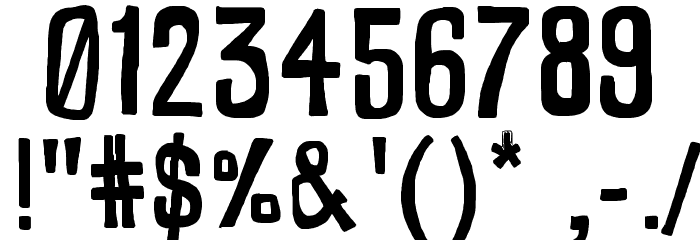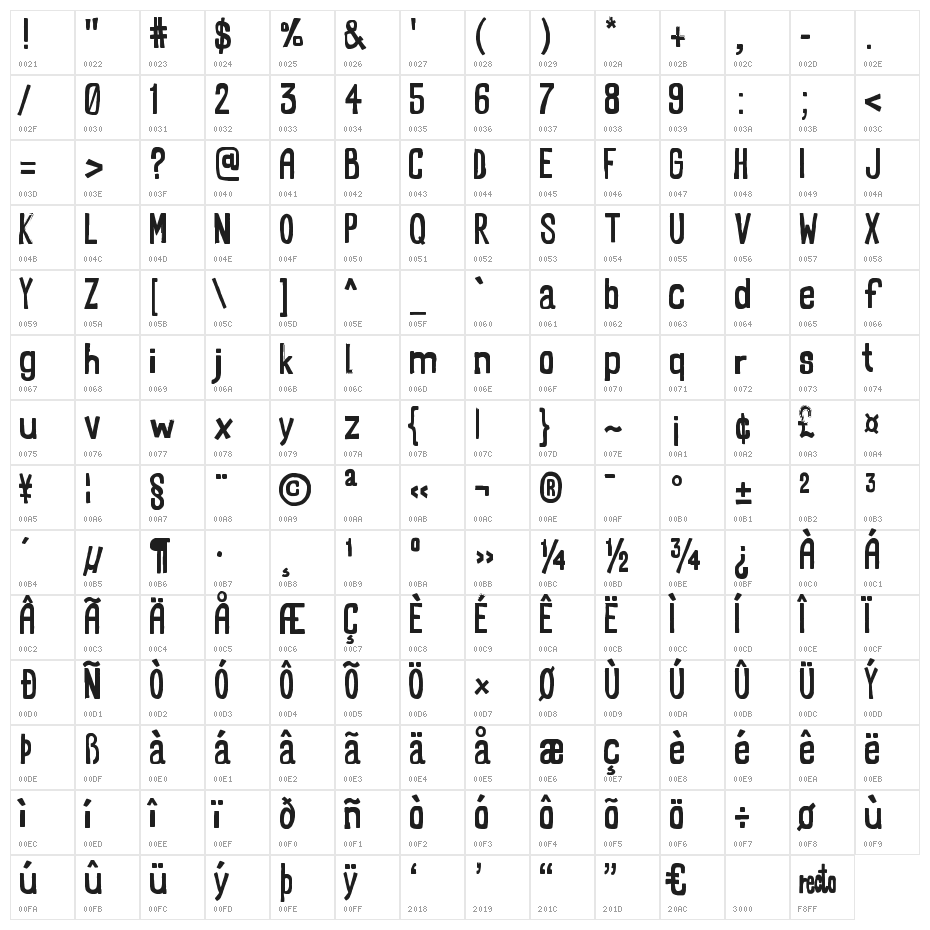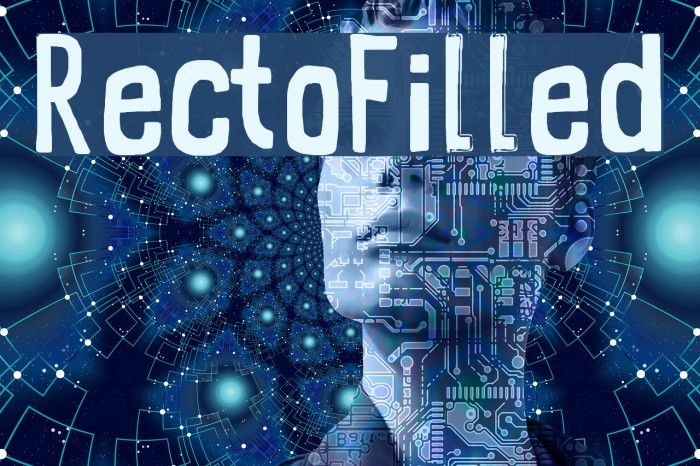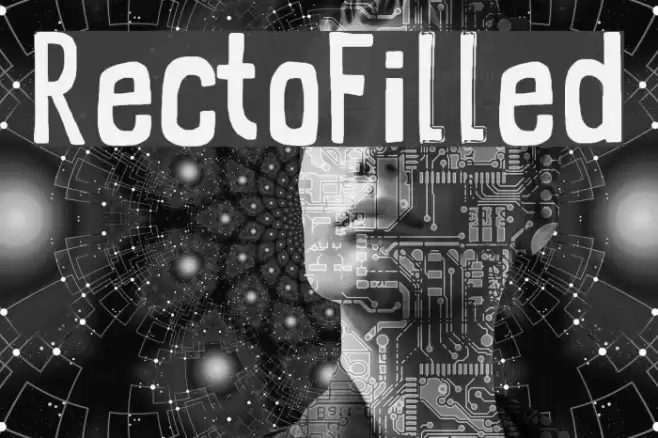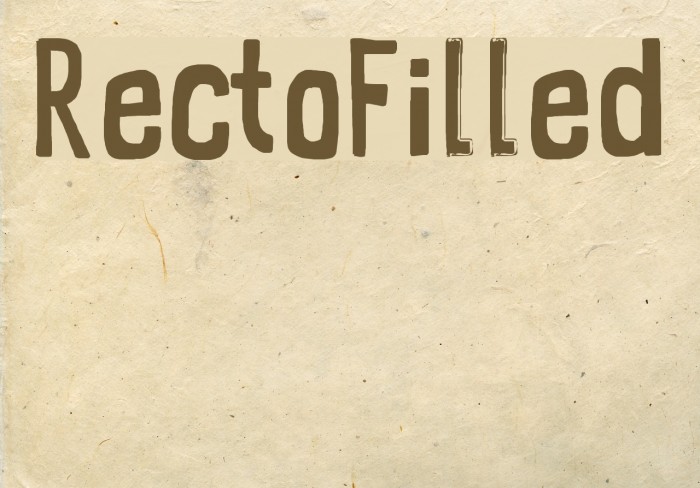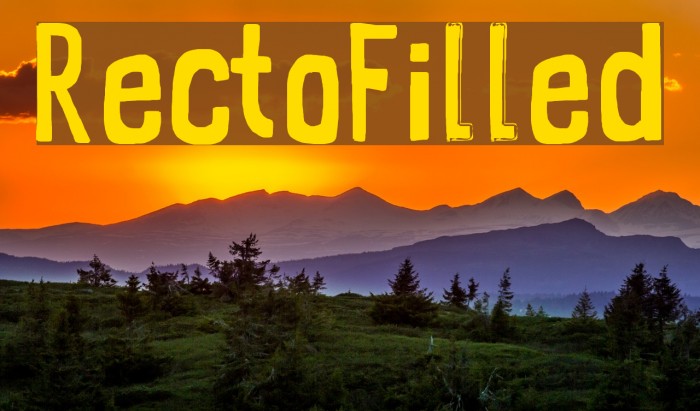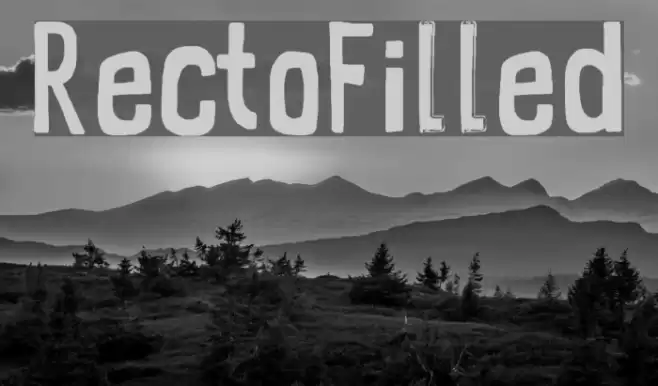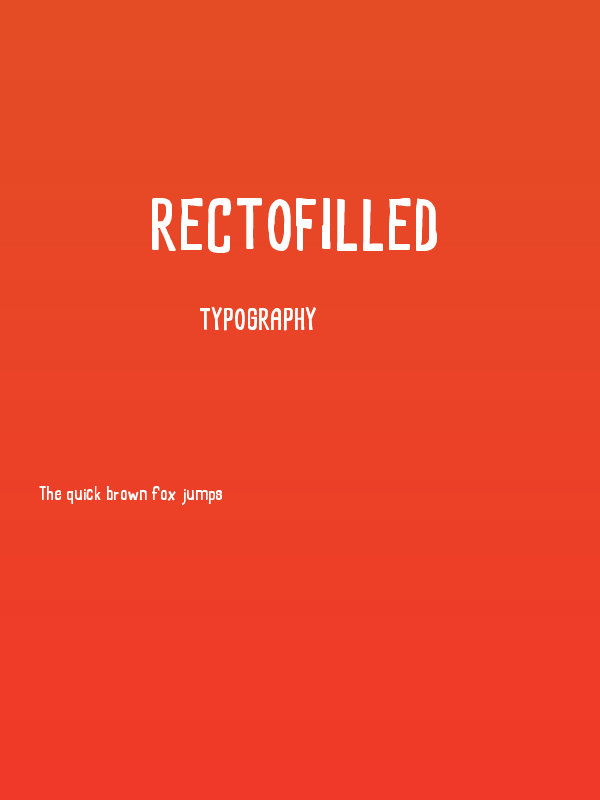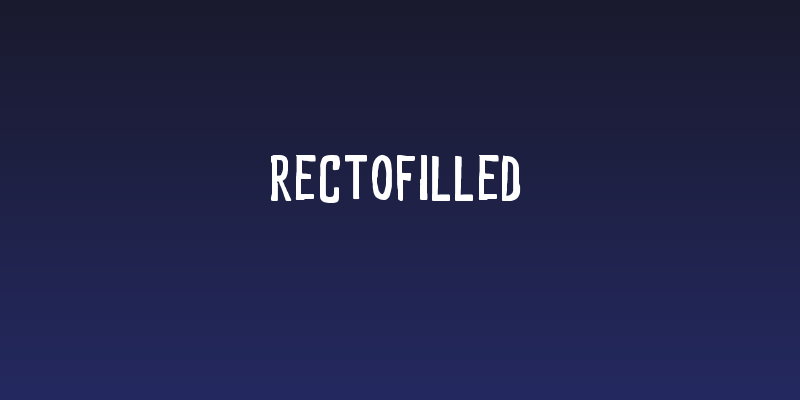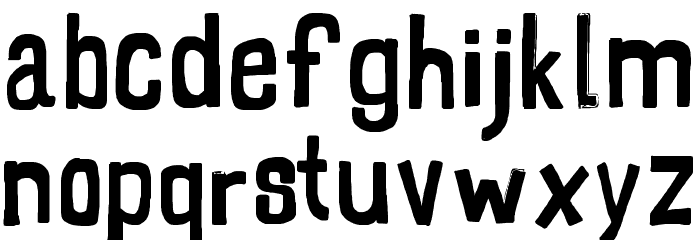
RectoFilled Font
RectoFilled Description
This font features a bold and assertive style with a hand-drawn, slightly irregular appearance. The uppercase and lowercase letters maintain a consistent thickness, giving it a robust and impactful look. The characters are slightly condensed, enhancing its strong visual presence. The numbers and special characters follow the same bold style, ensuring uniformity across all glyphs. The font's unique character is evident in its imperfect lines and edges, which add a touch of personality and charm. It is well-suited for projects that require a bold statement or a creative, artistic touch.
| Proposed Projects | Ideal for posters, branding, packaging, and creative projects that need a bold and artistic flair. |